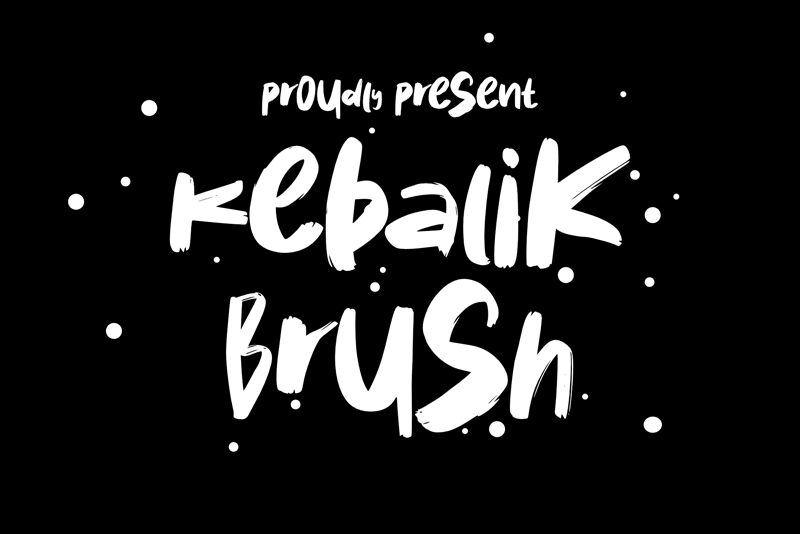
Kebalik Brush
Kebalik Brush, crafted by the imaginative DumadiStyle, is a font that captures the spontaneous energy of brush strokes on canvas. This bold typeface exudes strength and character, with thick lines that mimic the flow of a paintbrush guided by an artist's hand. The irregularities in its form convey a sense of authenticity and raw creativity, making it an ideal choice for projects that require a personal touch.
The aesthetic appeal of Kebalik Brush lies in its ability to blend chaos with control. Its letters dance between precision and freedom, creating an engaging visual rhythm that draws the eye. The brush style lends itself well to designs that call for an organic feel—be it for band logos, apparel branding, or dynamic advertising campaigns.
With its robust weight and unapologetic presence, Kebalik Brush stands out in any creative context. Whether splashed across a poster or elegantly gracing the cover of a book, this font has the versatility to both command attention and complement other design elements seamlessly. Embrace Kebalik Brush for projects where passion and vibrancy are at the heart of your message.